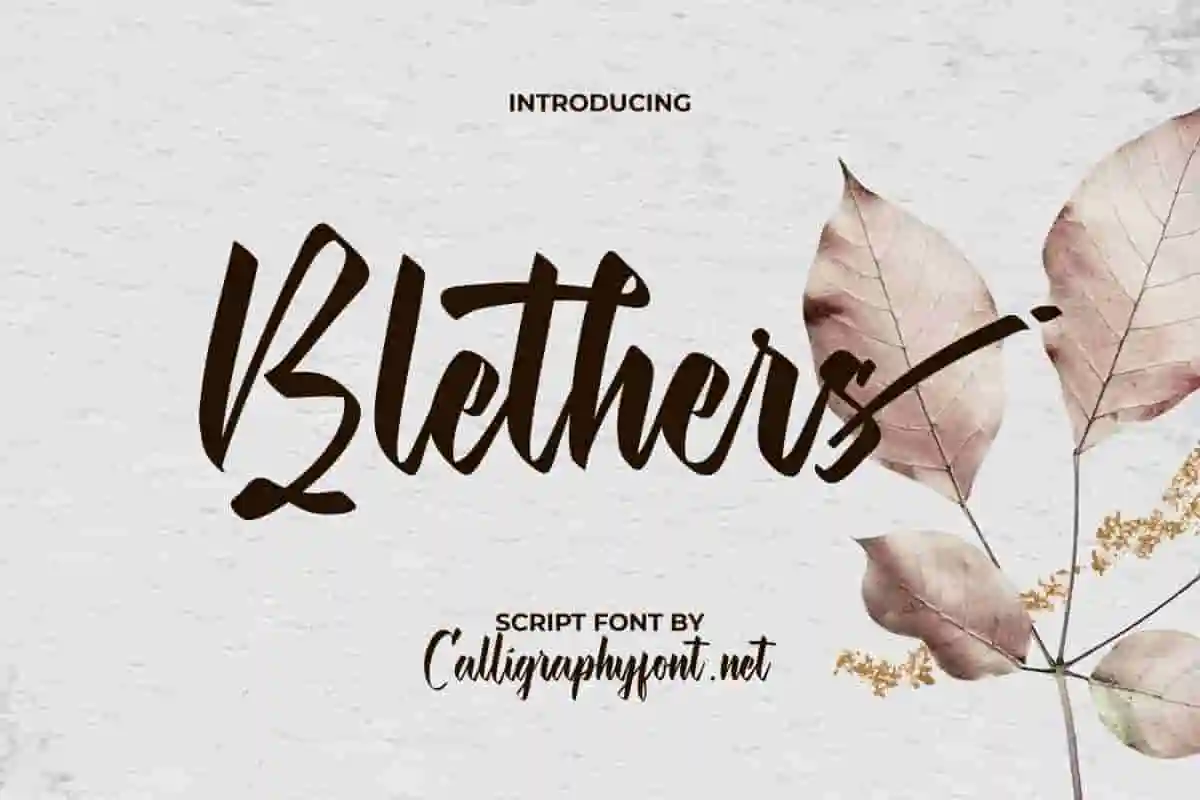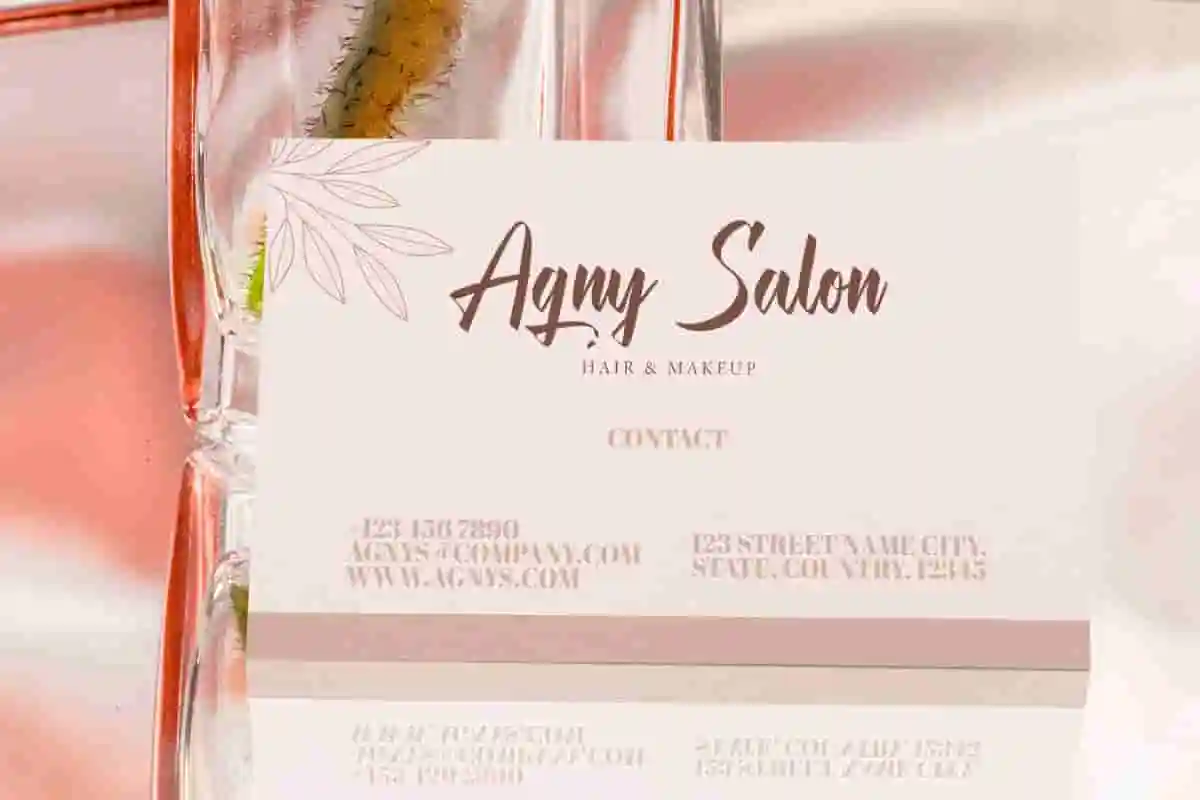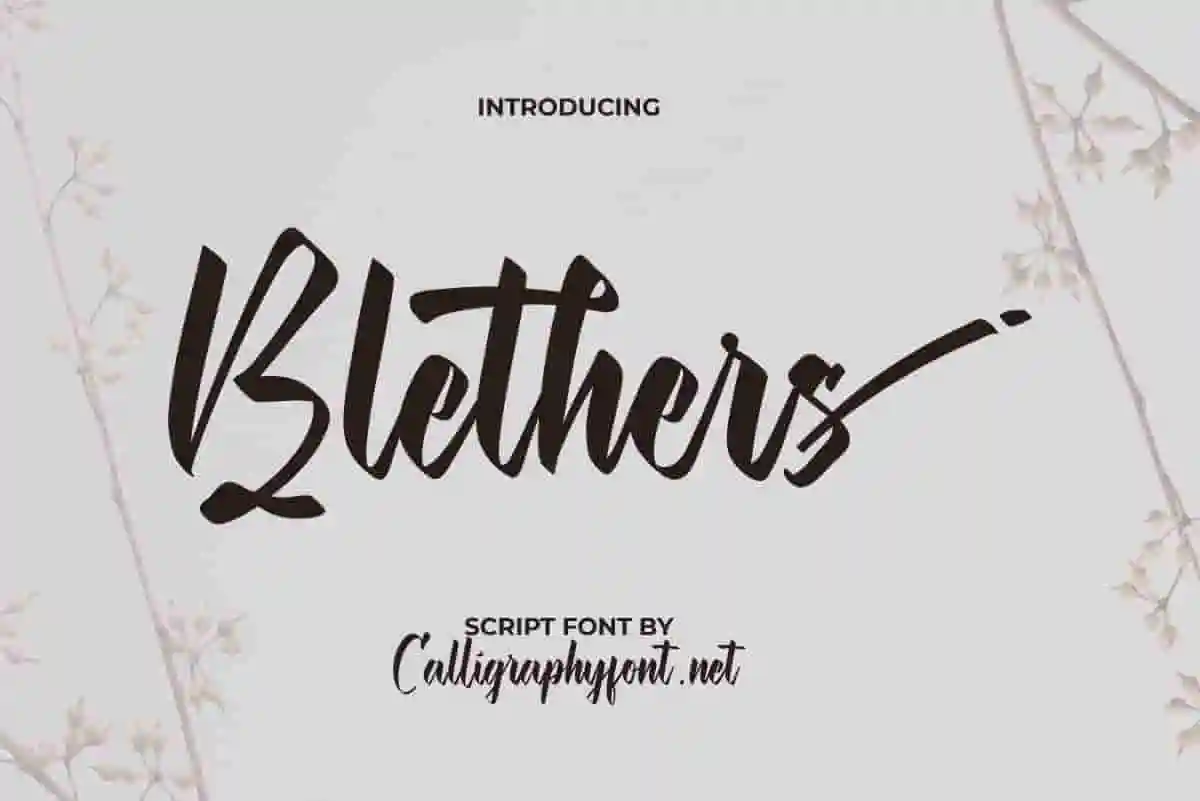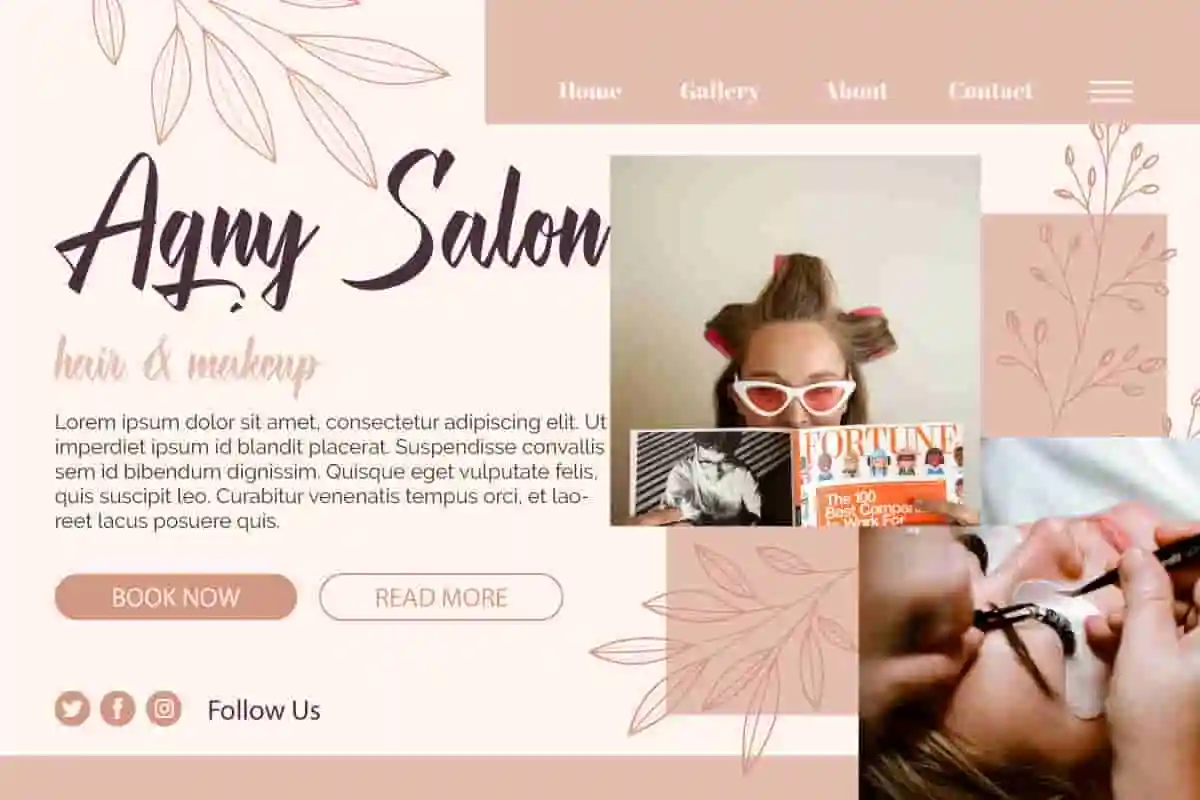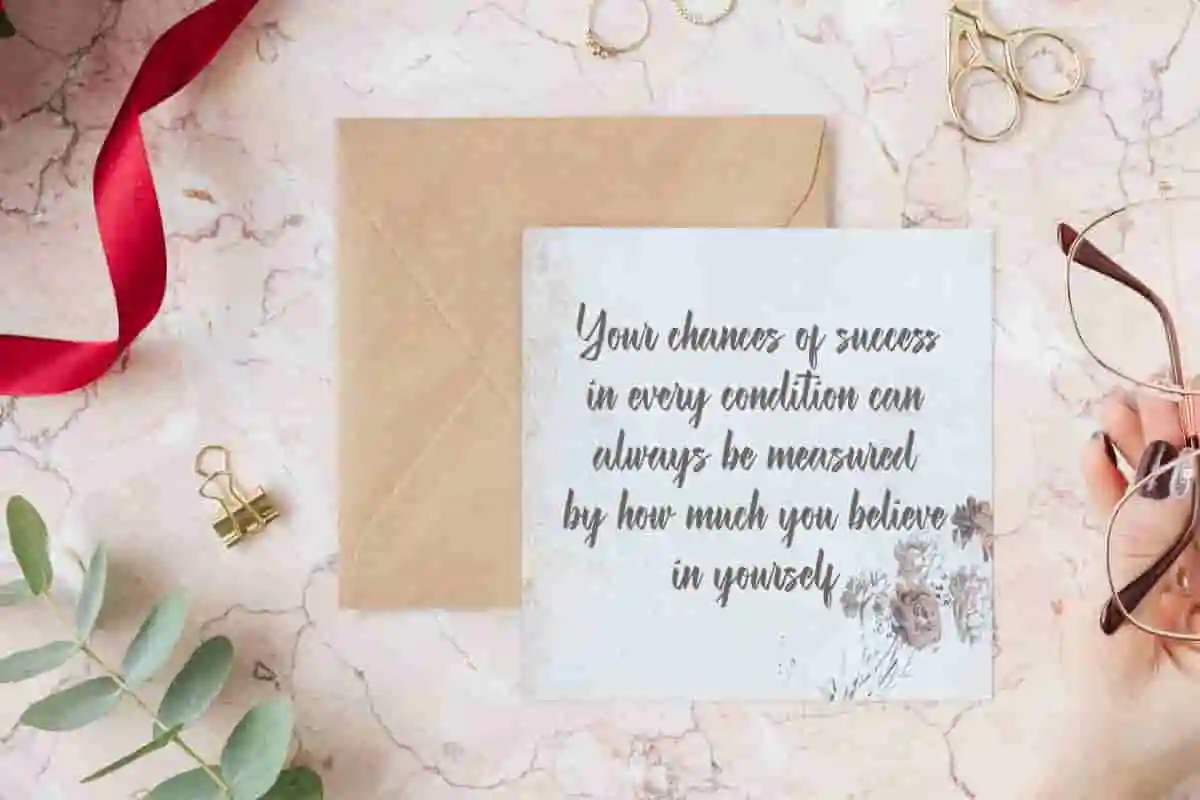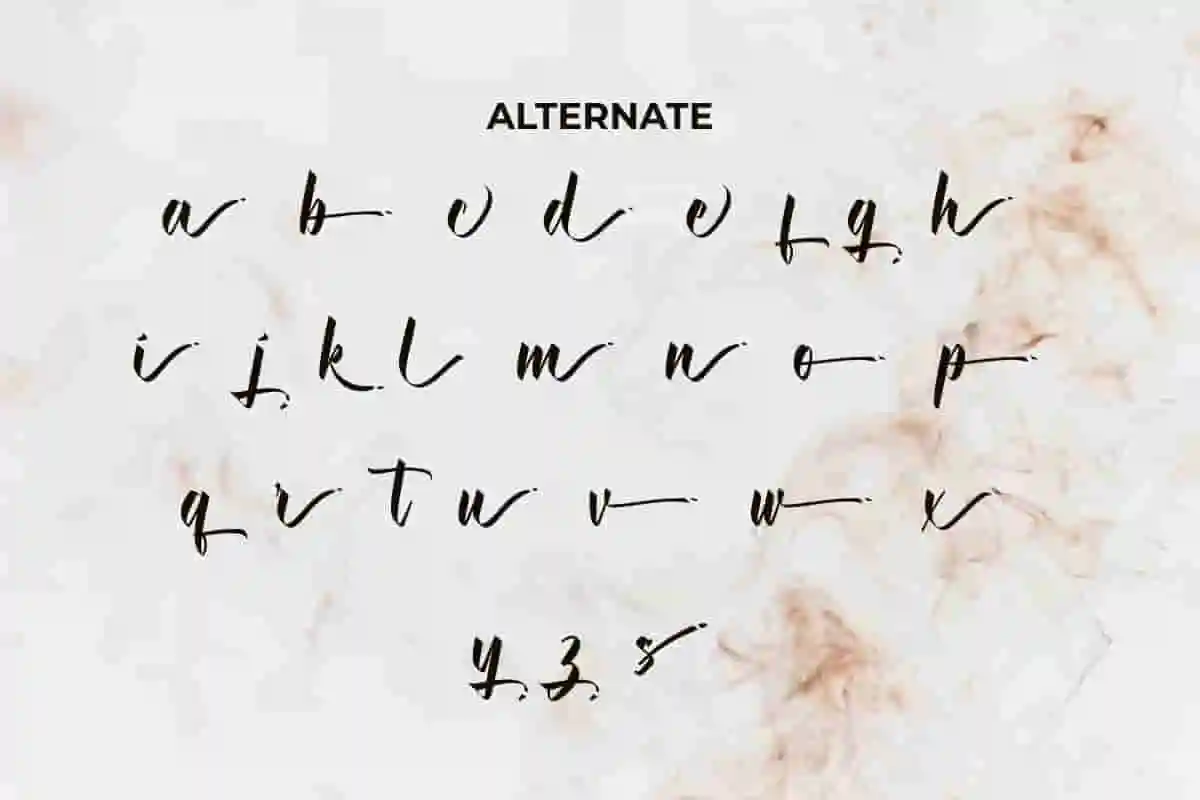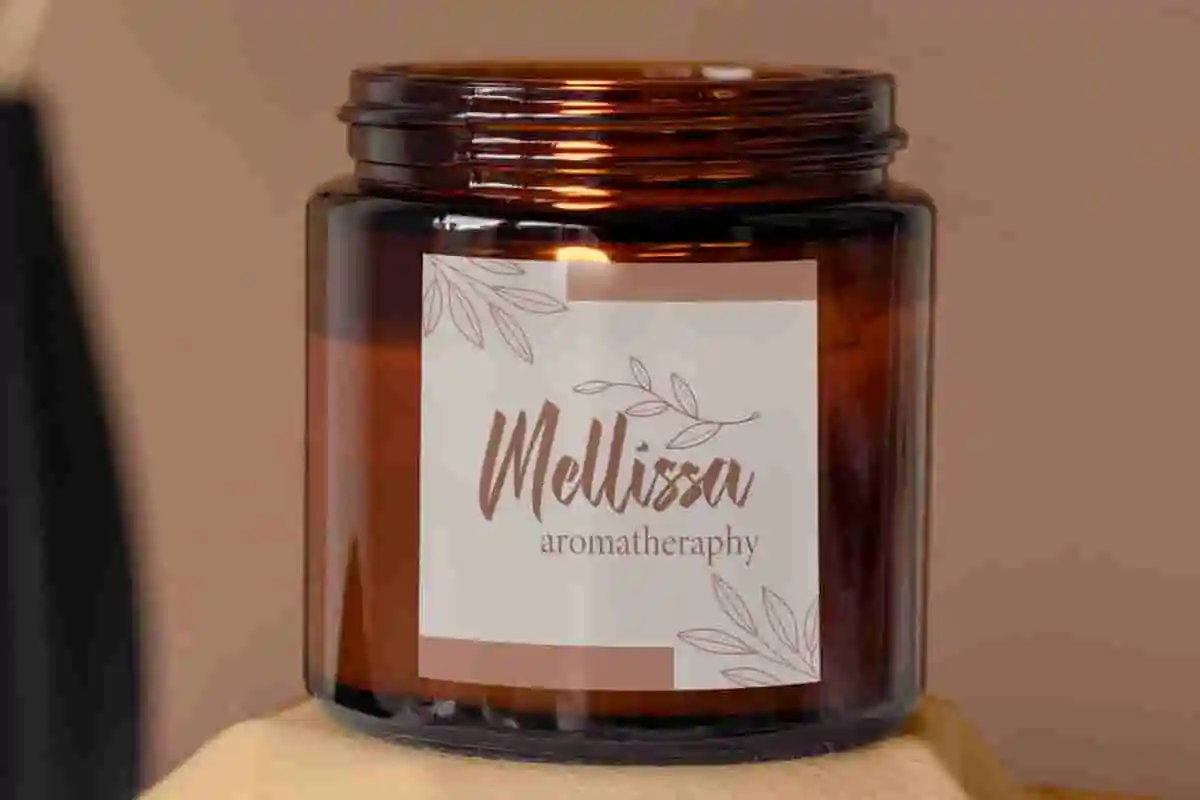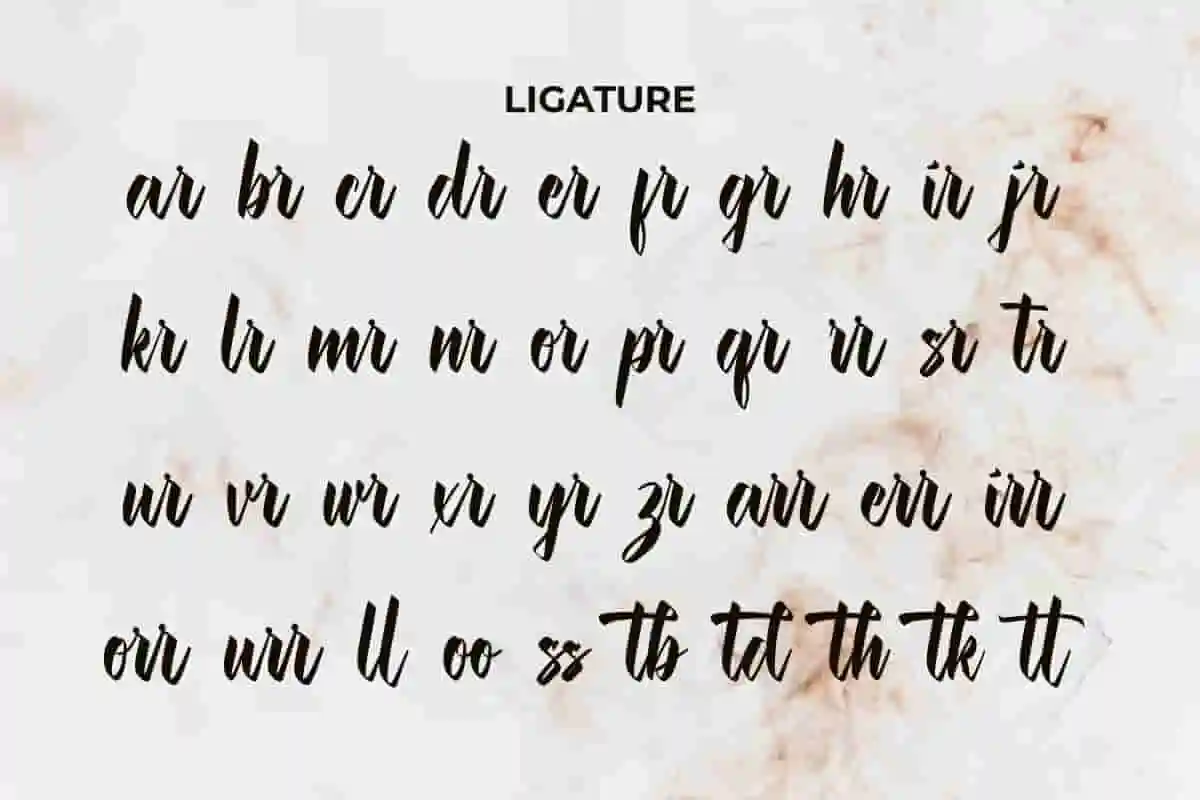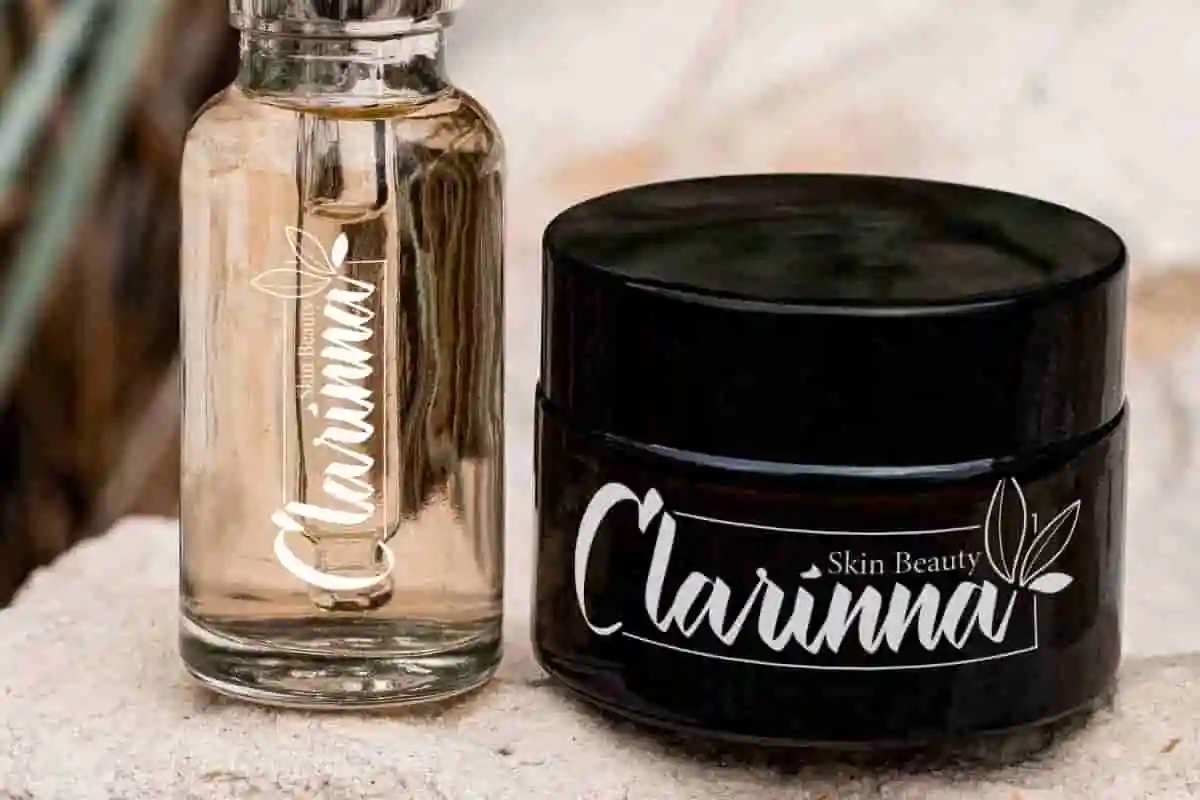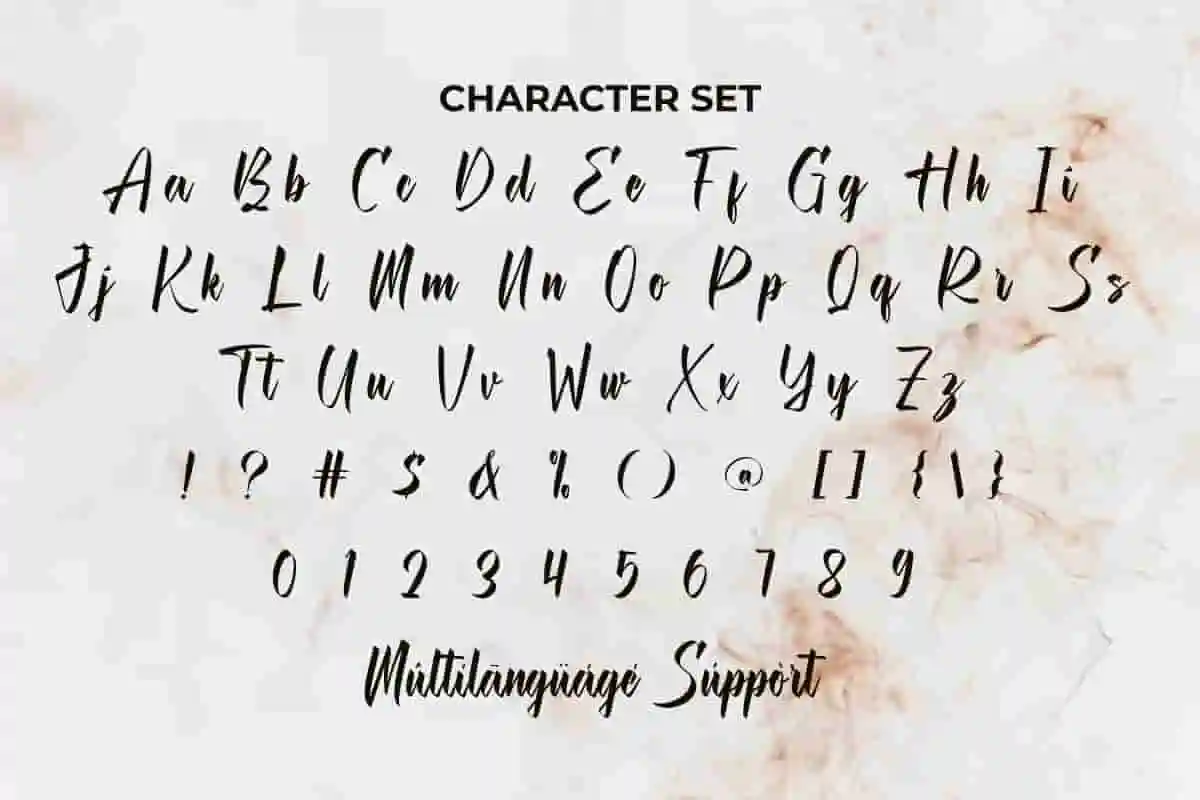
Blethers Feminine Calligraphy Font
Blethers Font is a feminine script font with the charm of the calligraphy style. This fashionable typography will work well for any creative project, feeling like a special touch that will elevate the beauty of the typography to another level.
Blethers Font is a feminine script font with the charm of the calligraphy style. The font has beautiful elegant characters with bold and stylish contrasting strokes. Addition of ligature characters and alternative styles to increase the artistic value of the font. The character of the letters imitates the beauty of human writing because it is handmade and can perfect your design needs so that it feels a personal touch, whether in terms of creating book titles, invitation cards, label, logo designs, product packaging, short text or even long text and perfect for combining fonts with sans or serif, social media, stationery design, sticker, website, and other things.
Say hello to Blethers, a graceful and feminine calligraphy font that adds charm and sophistication to every design. With its flowing lines and refined letterforms, Blethers is the perfect choice for creatives looking to infuse their work with a soft, romantic, and luxurious touch.
Introducing Blethers, a stunning feminine calligraphy font that brings elegance, charm, and sophistication to every design. With its flowing curves and delicate strokes, Blethers is perfect for creatives who want to make a soft yet memorable impression. This graceful script font is ideal for wedding invitations, branding, logos, social media, quotes, packaging, and anything that needs a romantic or luxurious touch.
Bring elegance to life with Blethers, a beautifully handcrafted calligraphy font designed for projects that deserve a soft, romantic, and graceful feel. With its flowing curves and delicate details, Blethers is the perfect typeface for designers who want to add a feminine and artistic touch to their work. Ideal for wedding stationery, beauty branding, logos, social media content, product packaging, and more, this font turns words into art.
- Feminine & Flowing Design
- Complete Character Set
Blethers Font is a versatile typeface with a modern aesthetic, it allows you to explore limitless creativity. This font is great for your next business, such as accessories and merchandise, bakery, beauty clinic, cosmetic, fashion, florist, furniture, graphic design, homeware design, hotel, jewelry, makeup artist, restaurant, perfume, photography, printing, publishing, skincare, spa salon, wedding organizer, writer, and anything that requires a beautiful and calm font display.
Blethers Font comes with a complete set of Uppercase and Lowercase Basic Characters, Number, a large range of Punctuation, Symbol and some additional Ligature & Alternate characters. It is supported with multilingual characters and ready to use both on Windows machine or Mac with simple installations. It’s tested to work well in the Adobe Apps (Illustrator, Adobe InDesign, Adobe Photoshop) CorelDraw, and others. PUA Encode Characters means you can access all the characters easily – Fully accessible without additional design software.